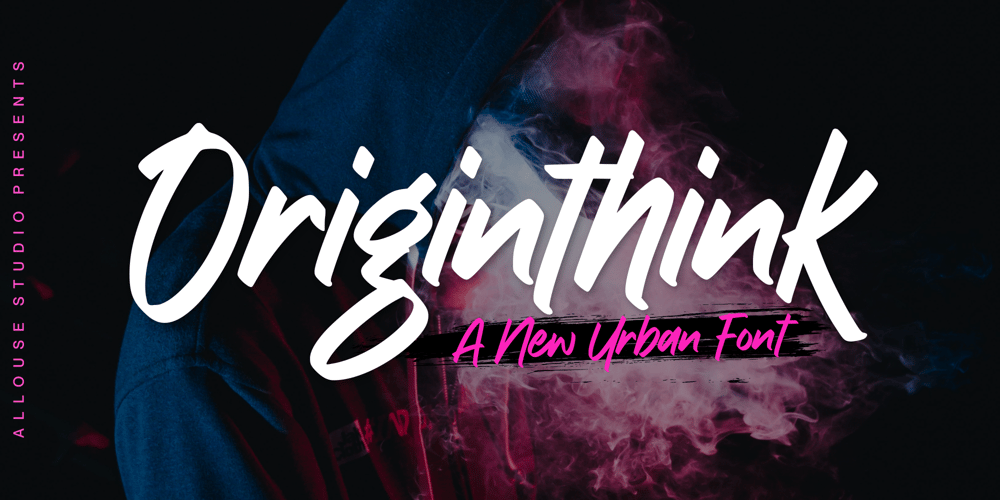
Originthink
Originthink font
Originthink Font Family was designed by Fachrizal Yusuf and published by Allouse Studio. Originthink contains 1 styles and family package options. Proudly Presenting, Originthink An Urban Style Font.Originthink is perfect for product packaging, branding project, megazine, social media, wedding, or just used to express words above the background.Originthink also come with Multi-Lingual Support.Enjoy the font, feel free to comment or feedback, send me PM or email. Thank You!